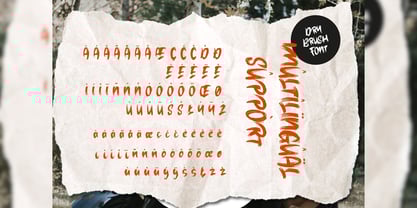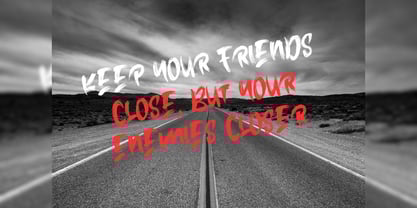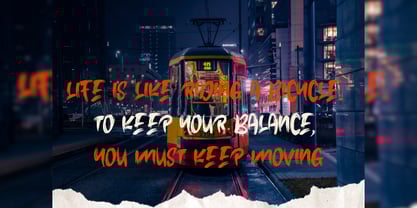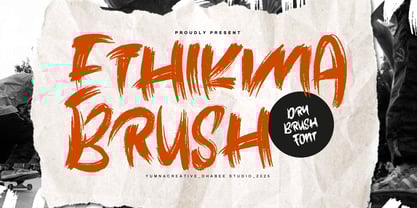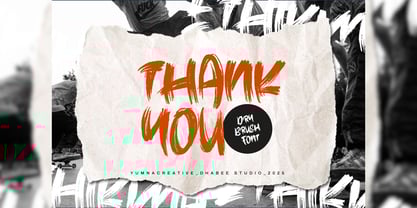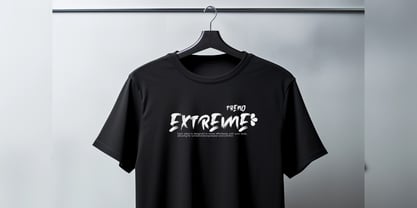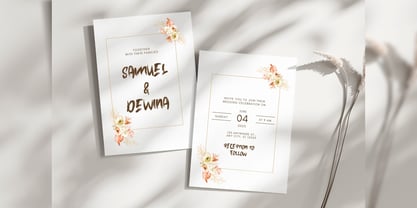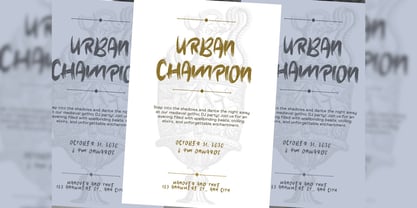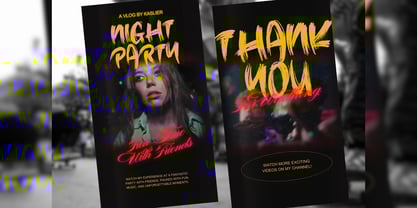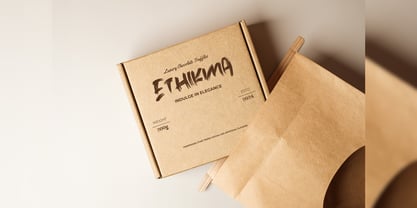
Ethikma
The Ethikma Font Family was designed by Dhimas Habibie and published by Yumnacreative. Ethikma contains 1 styles.
Introducing Ethikma – Dry Brush Font
Ethikma – Dry Brush Font which has a hand lettering brush style. So it looks natural like a handmade. This texture is very detailed. This font is suitable for logos, product branding, printable templates or for text overlay to any background image, also suitable for use in title design. Such as apparel, invitations, books tittle, stationery design, quotes, branding, greeting card, t-shirt, packaging design, poster and more.
FEATURES
– Uppercase and Lowercase letters
– Numbering and Punctuations
– Multilingual Supports